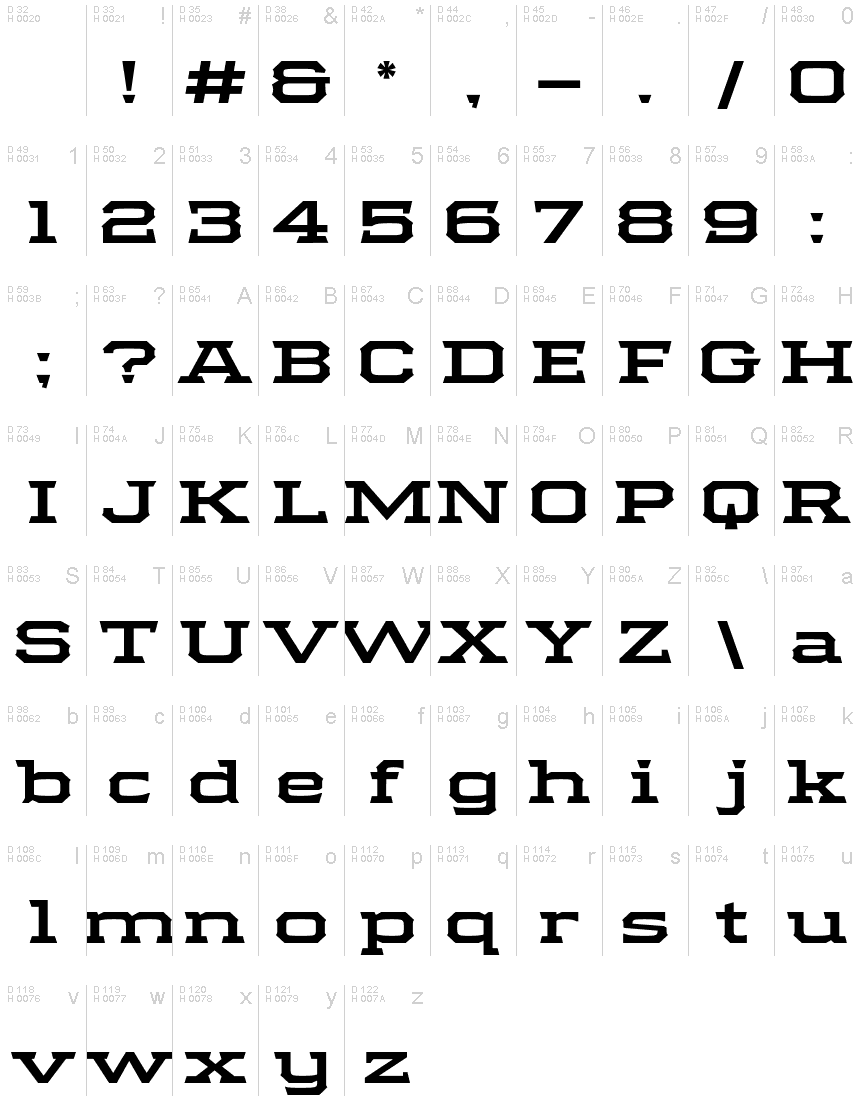
Samton Extra Extended Bold
Samton Font come with 15 style, with Basic latin character, Samton was created when I practiced about axes coordinate. This font has a weight and width axes. with 4 masters and interpolated to 15 fonts. it's free for commercial used.